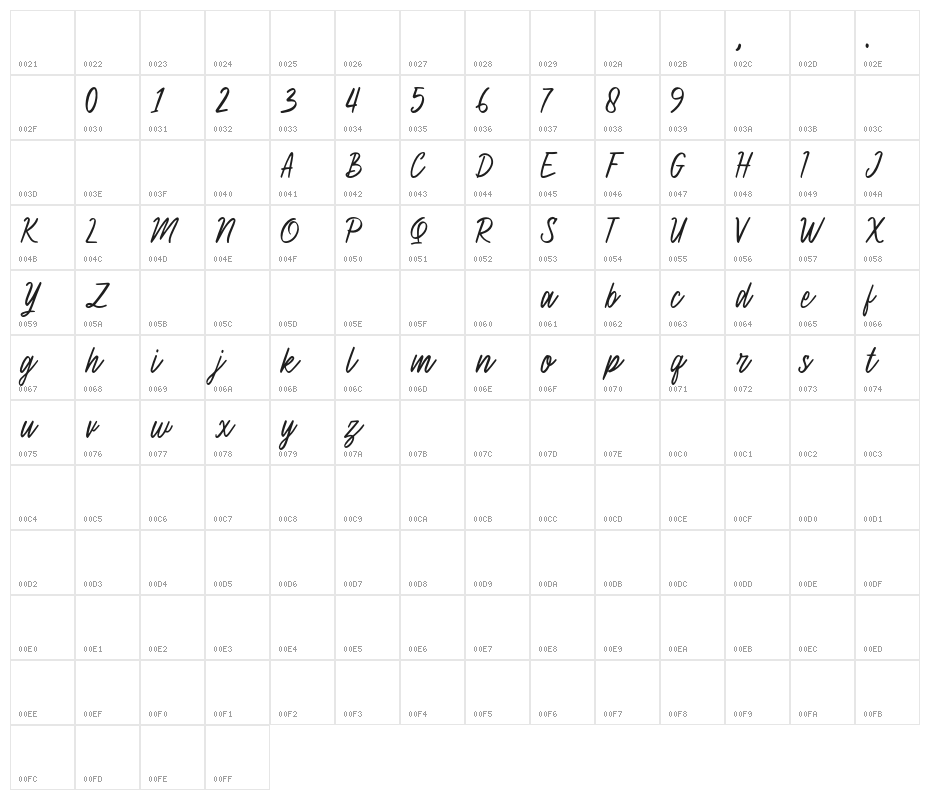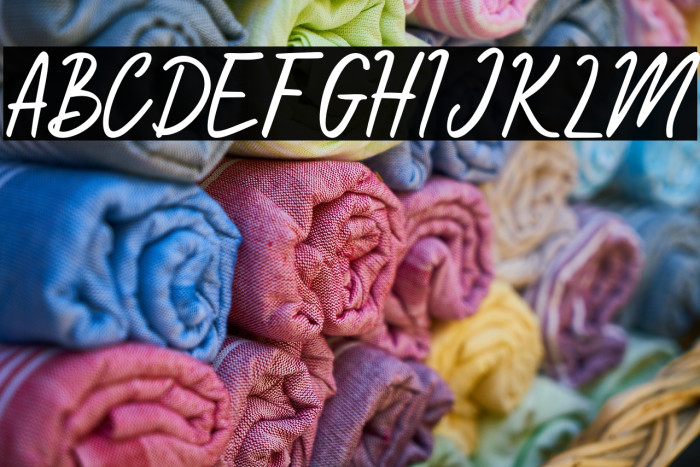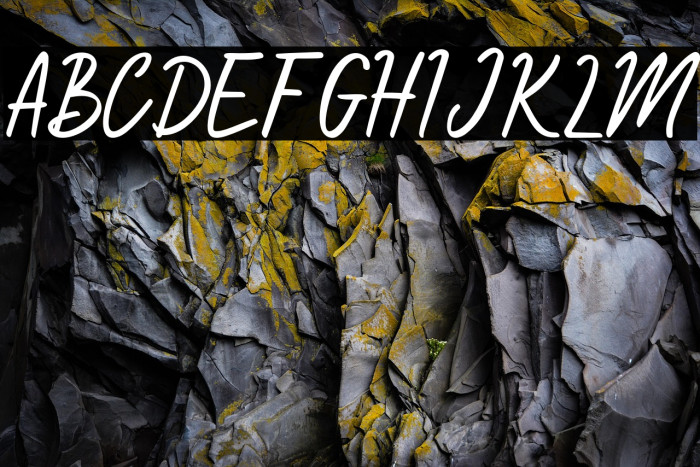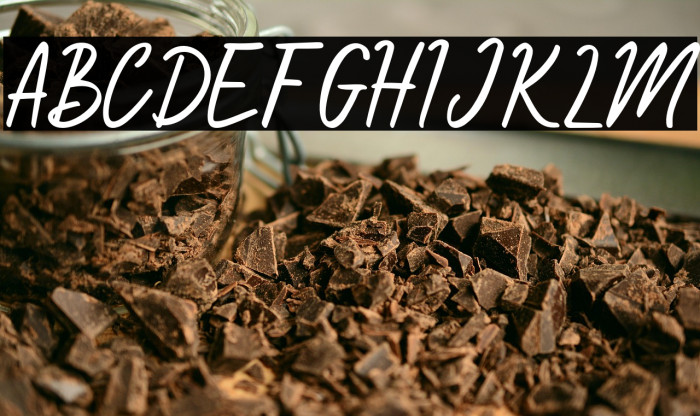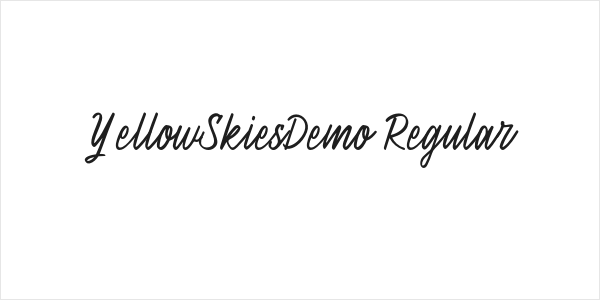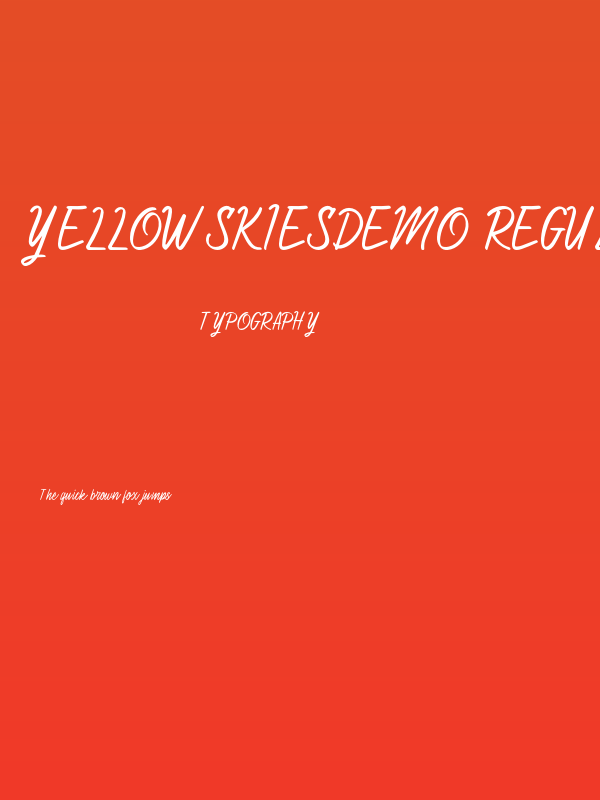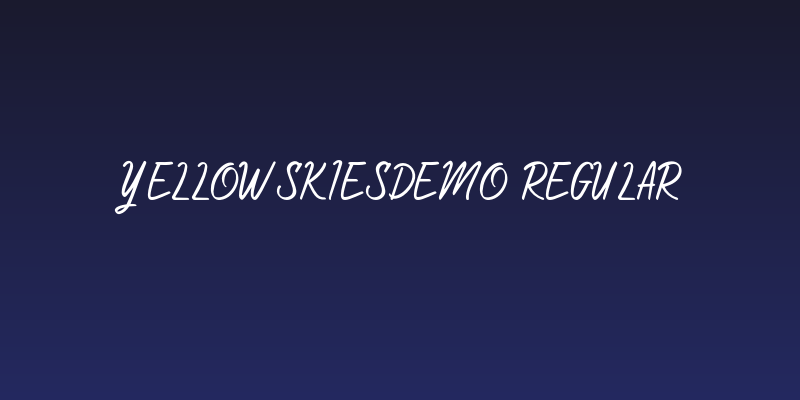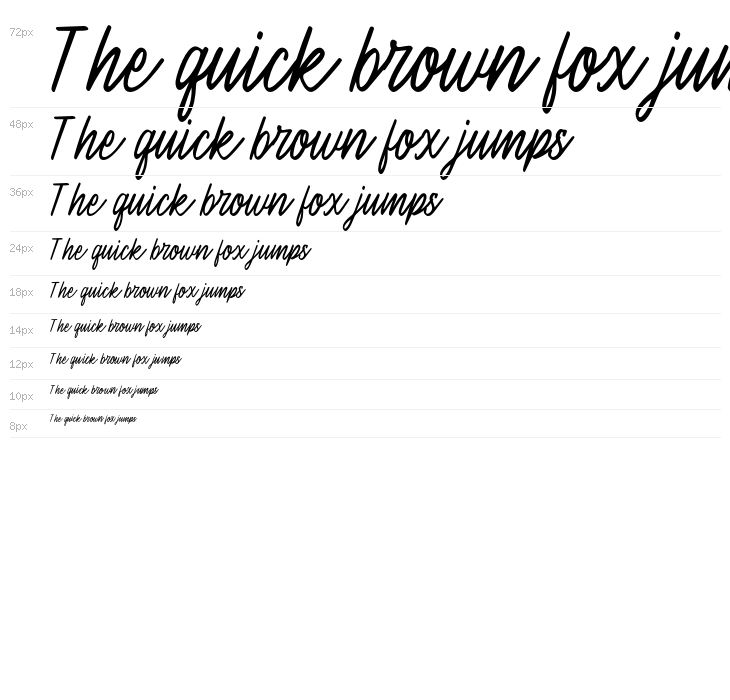
YellowSkiesDemo-Regular Font
YellowSkiesDemo-Regular Description
This font exudes a lively and dynamic handwritten style, characterized by its fluid and connected strokes. The letters have a slight slant, giving it a casual yet elegant appearance. The uppercase letters are bold and prominent, while the lowercase letters maintain a consistent flow, enhancing readability. The numbers and special characters are crafted with the same attention to detail, ensuring uniformity across all elements. This font is perfect for projects that require a personal touch, such as invitations, greeting cards, or branding materials.
| Overall Style | Casual, Elegant |
| Use Case | Headlines, Logos, Personal projects |
| Proposed Projects | Ideal for invitations, greeting cards, branding materials, and personal projects. |